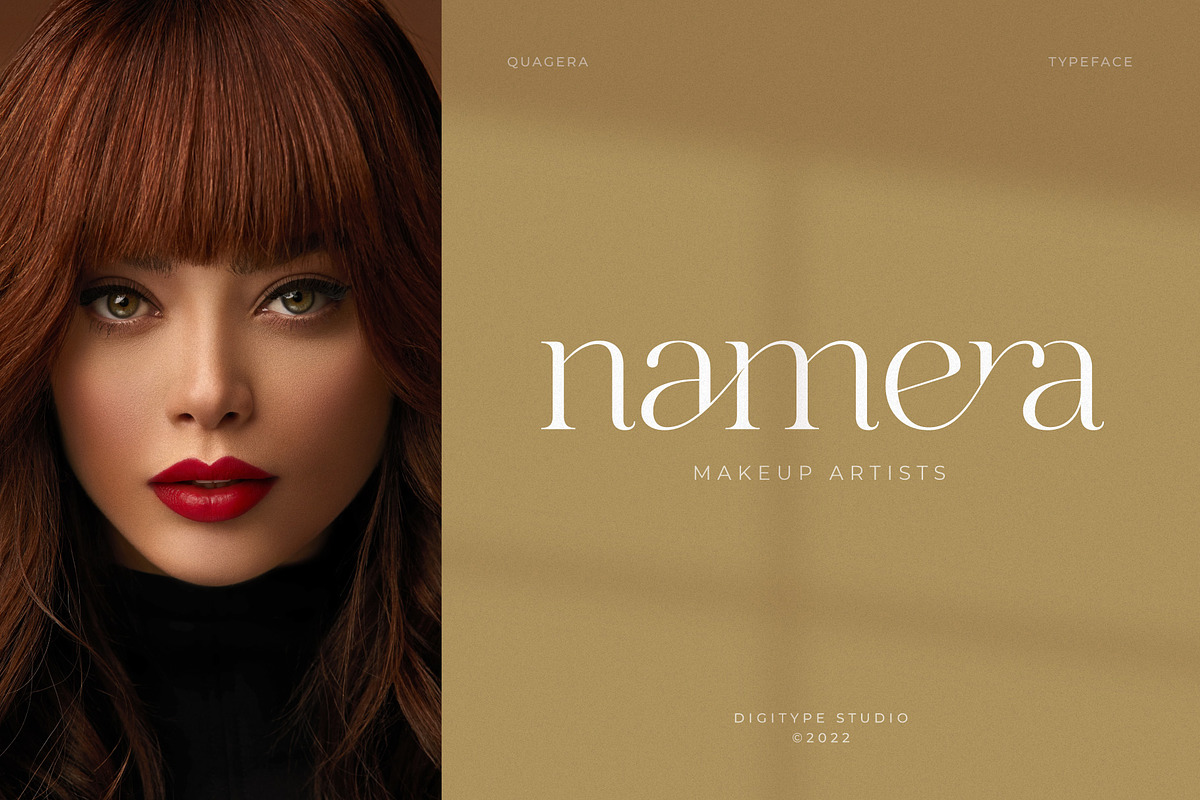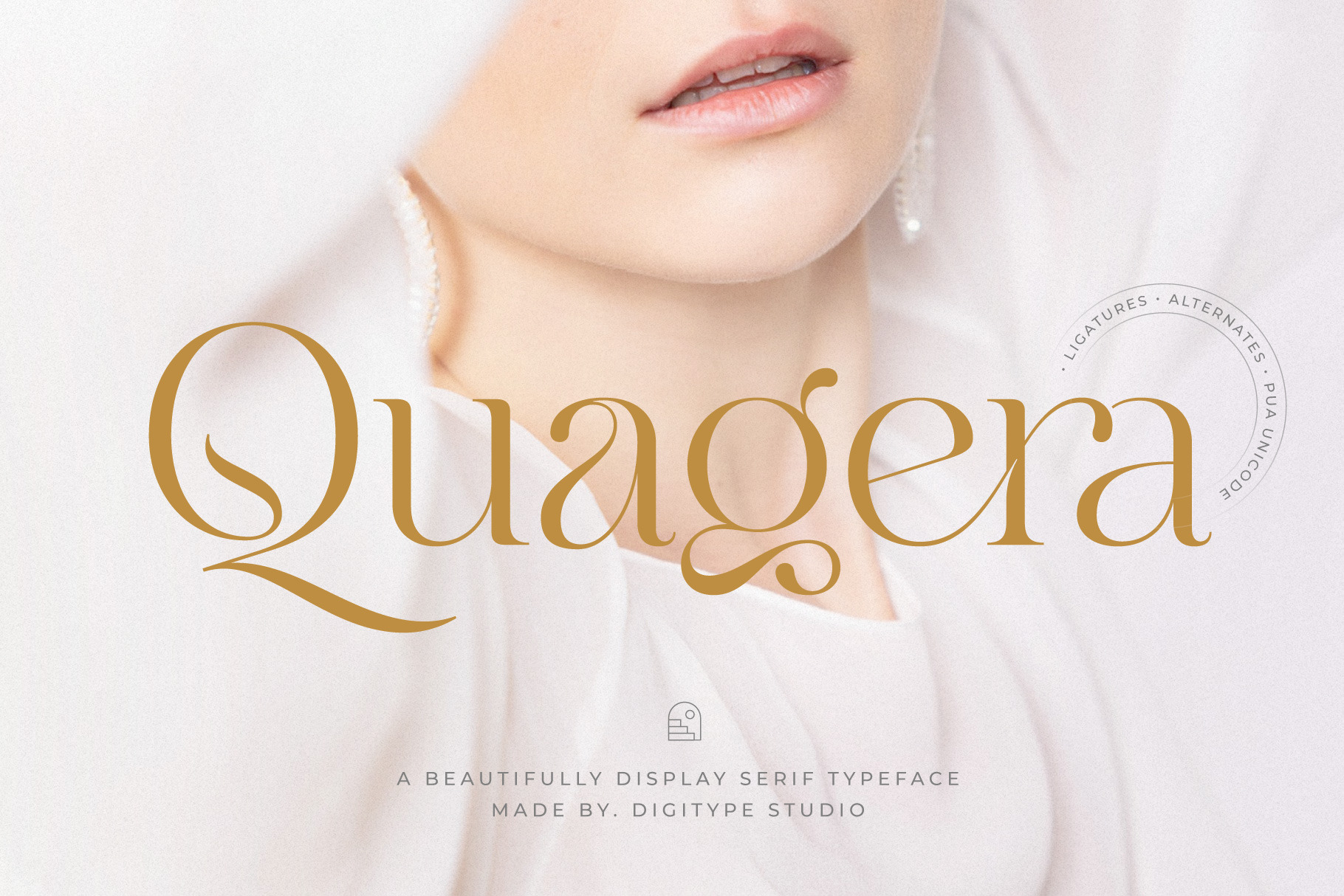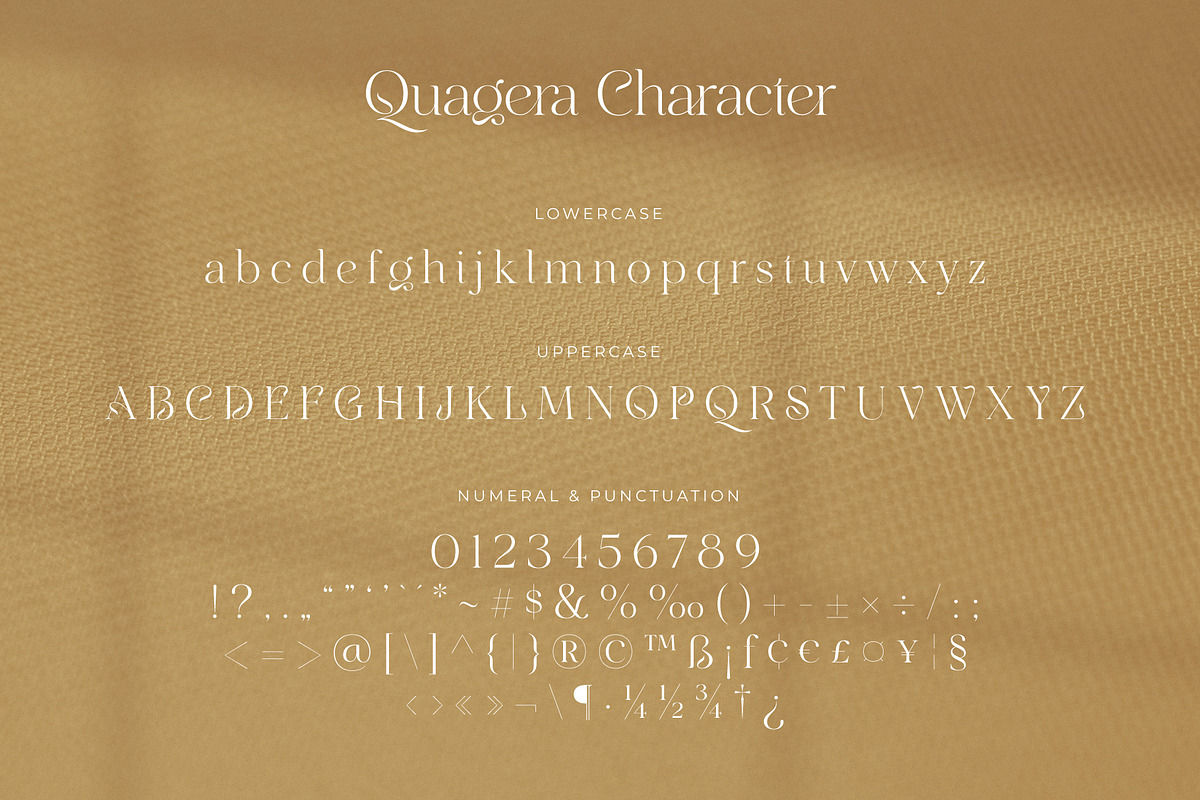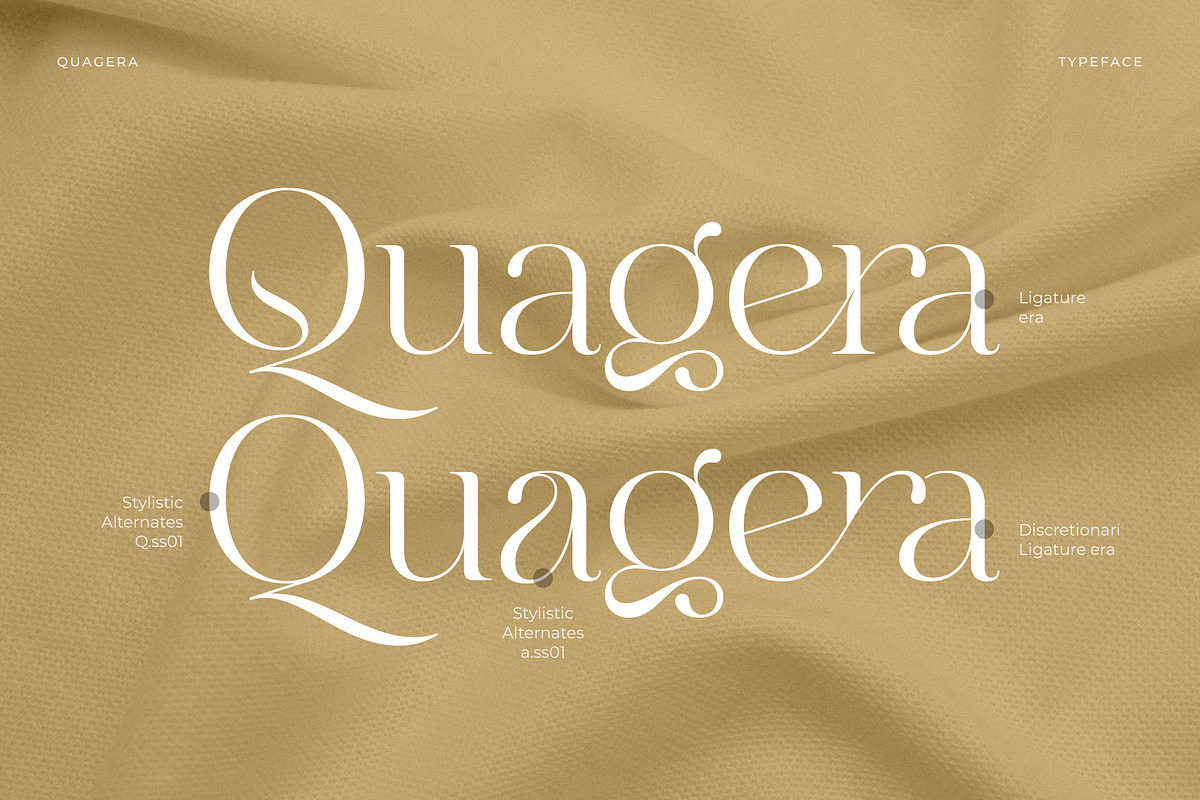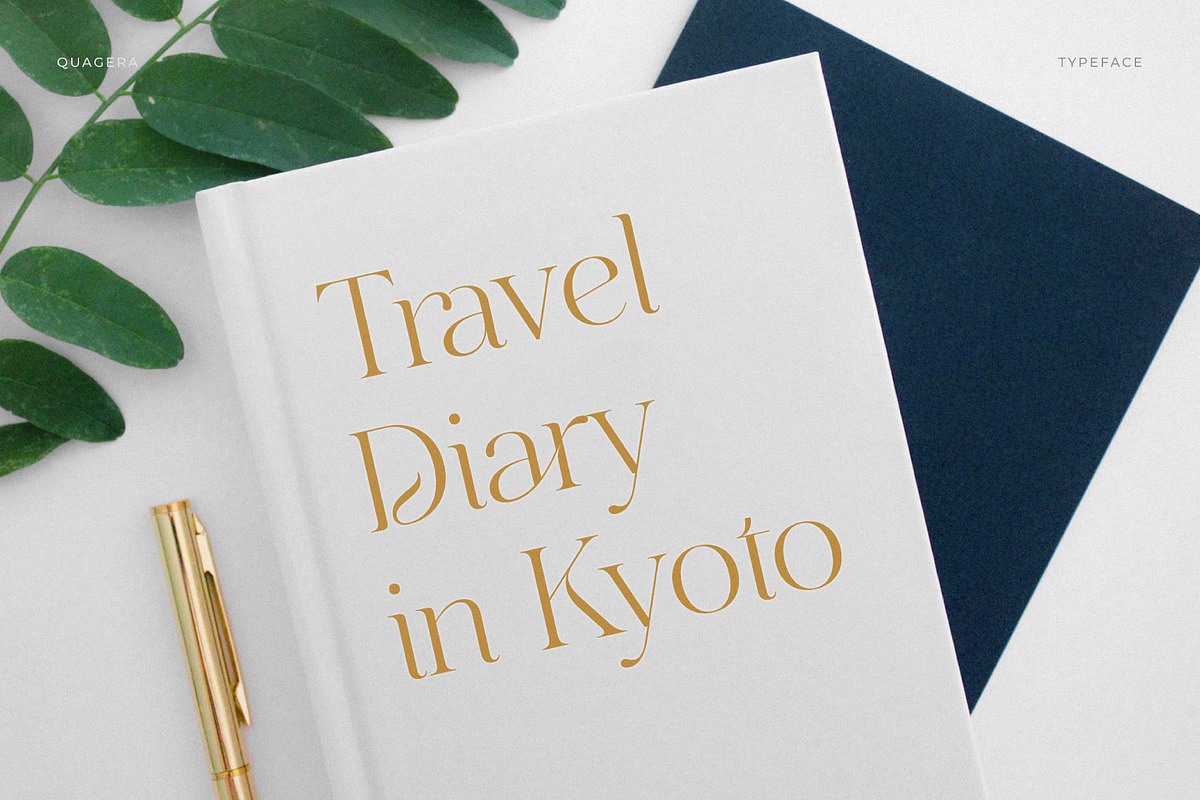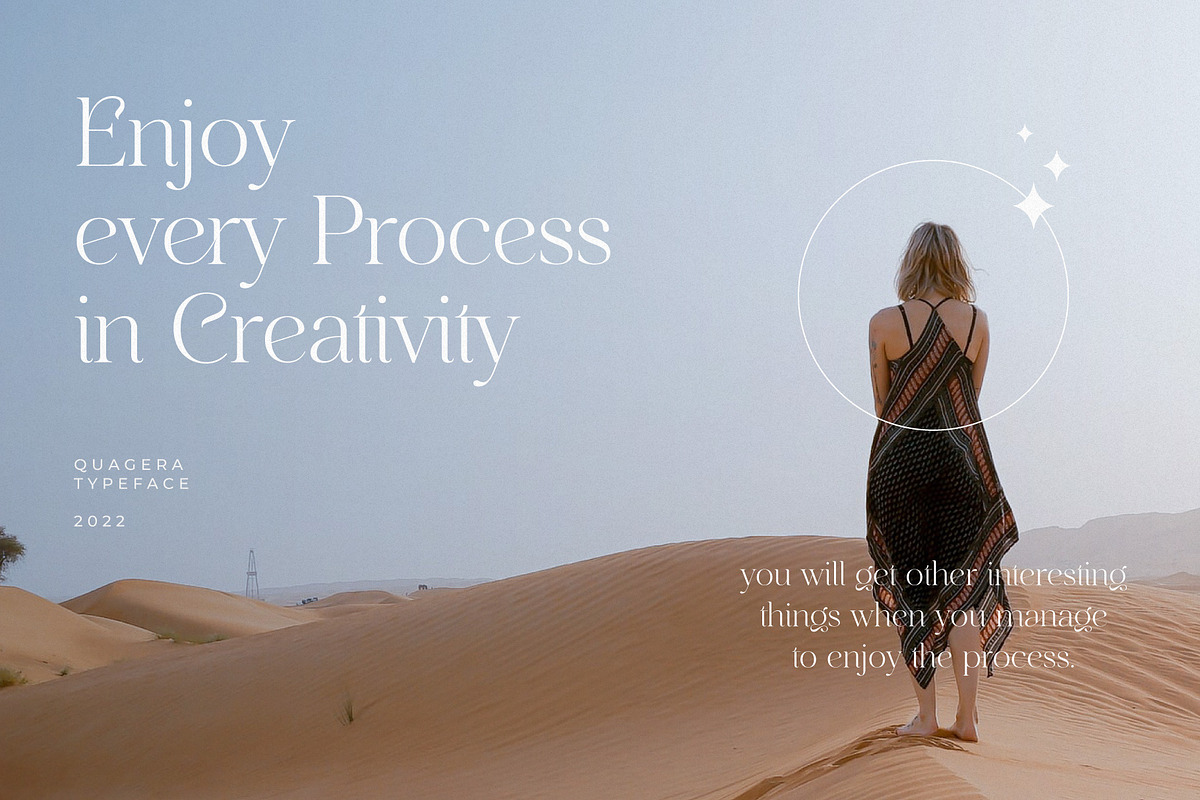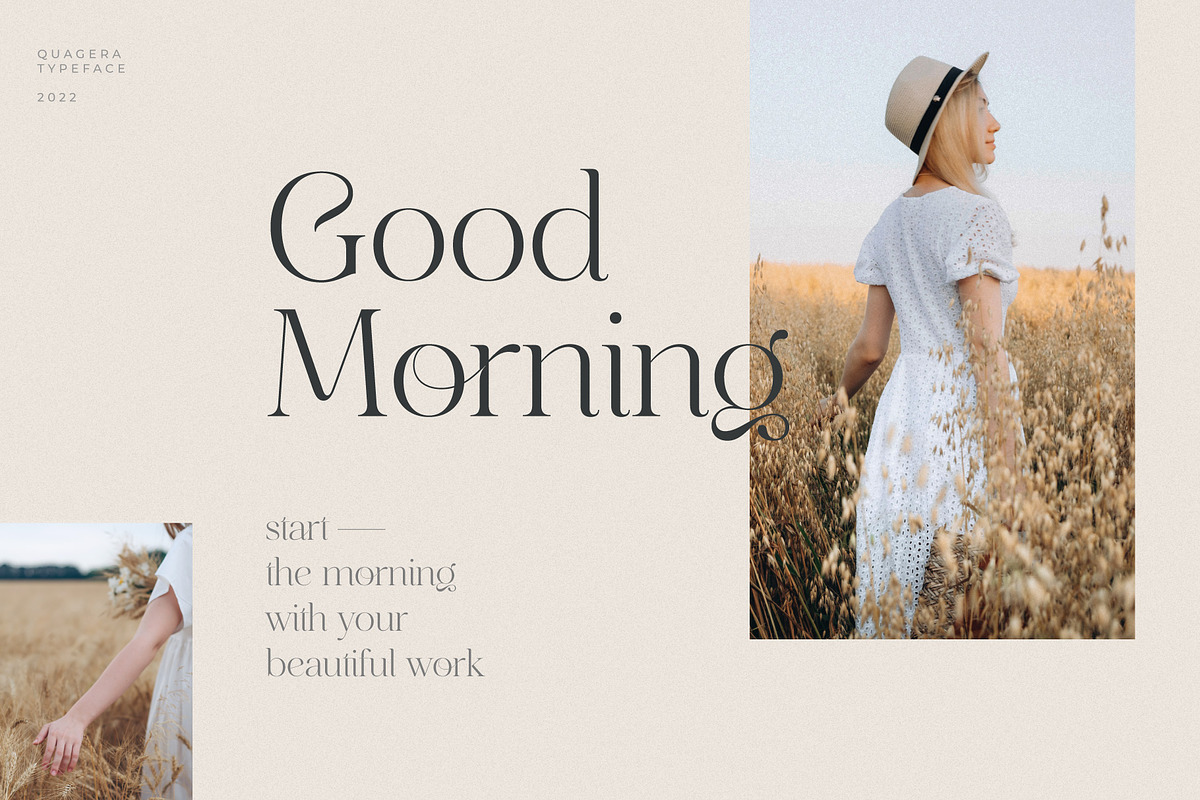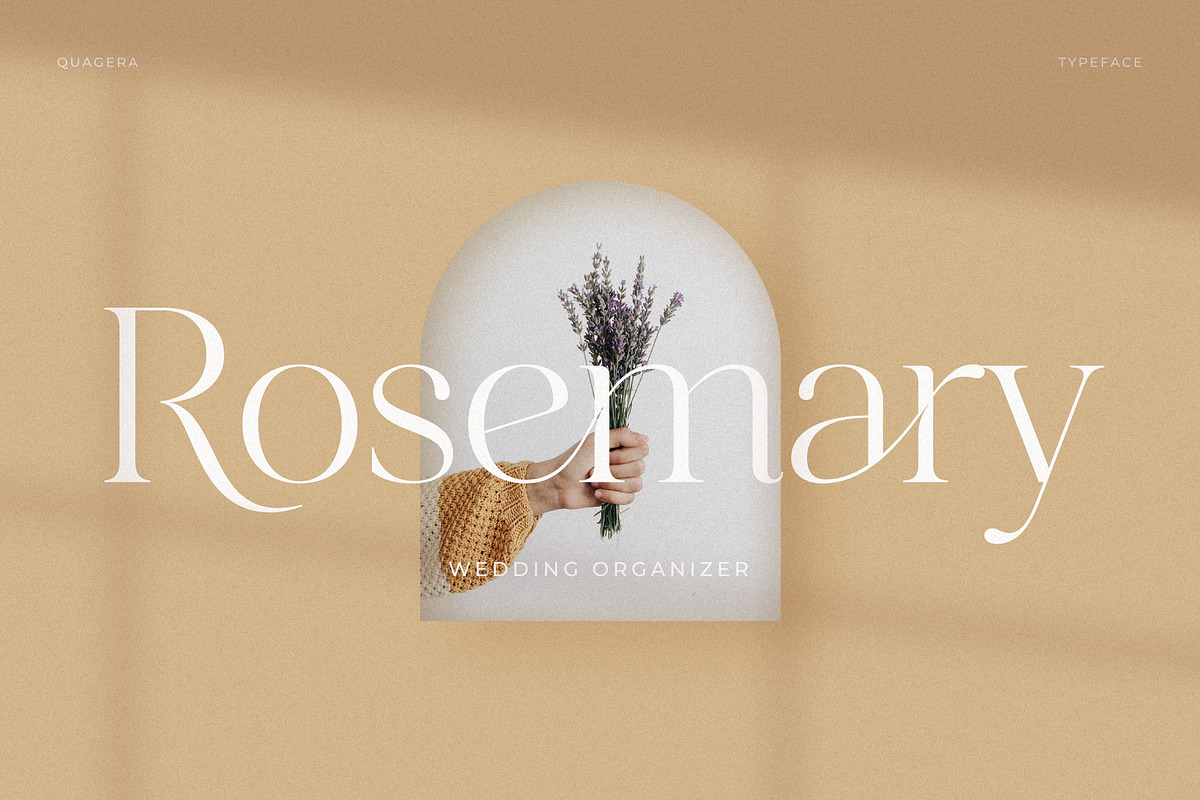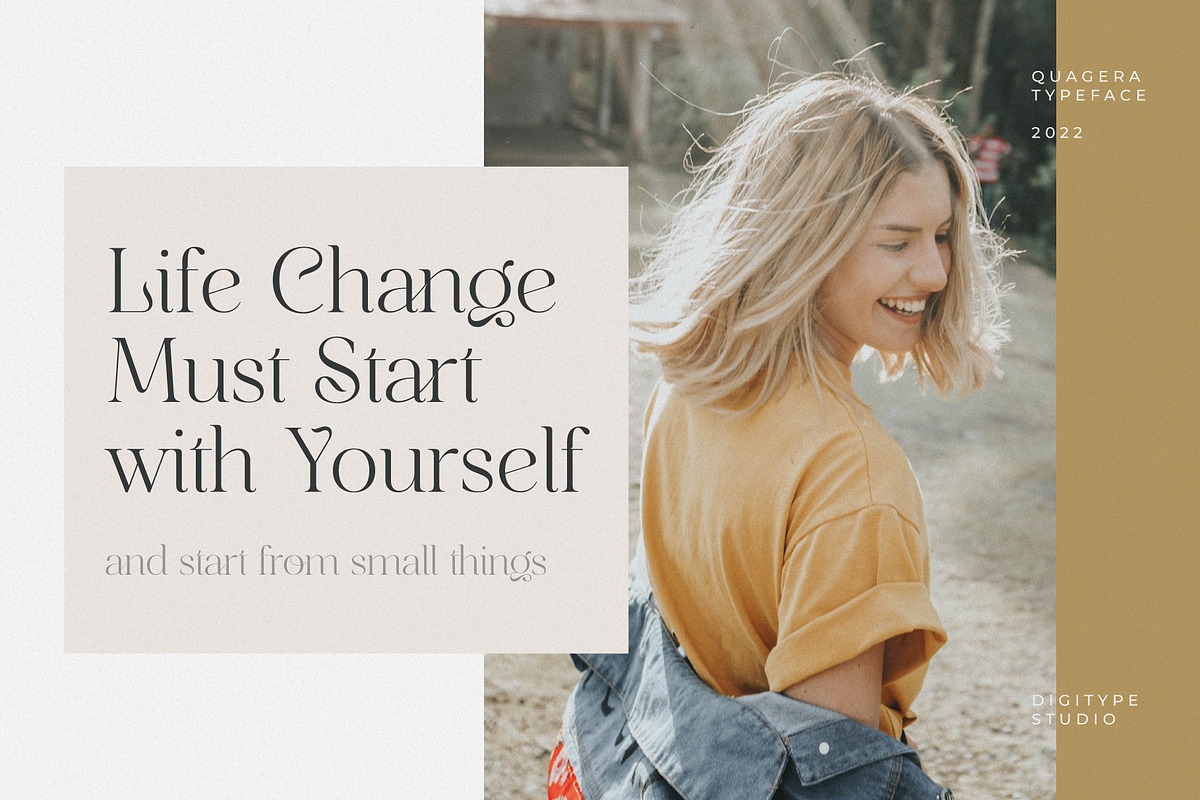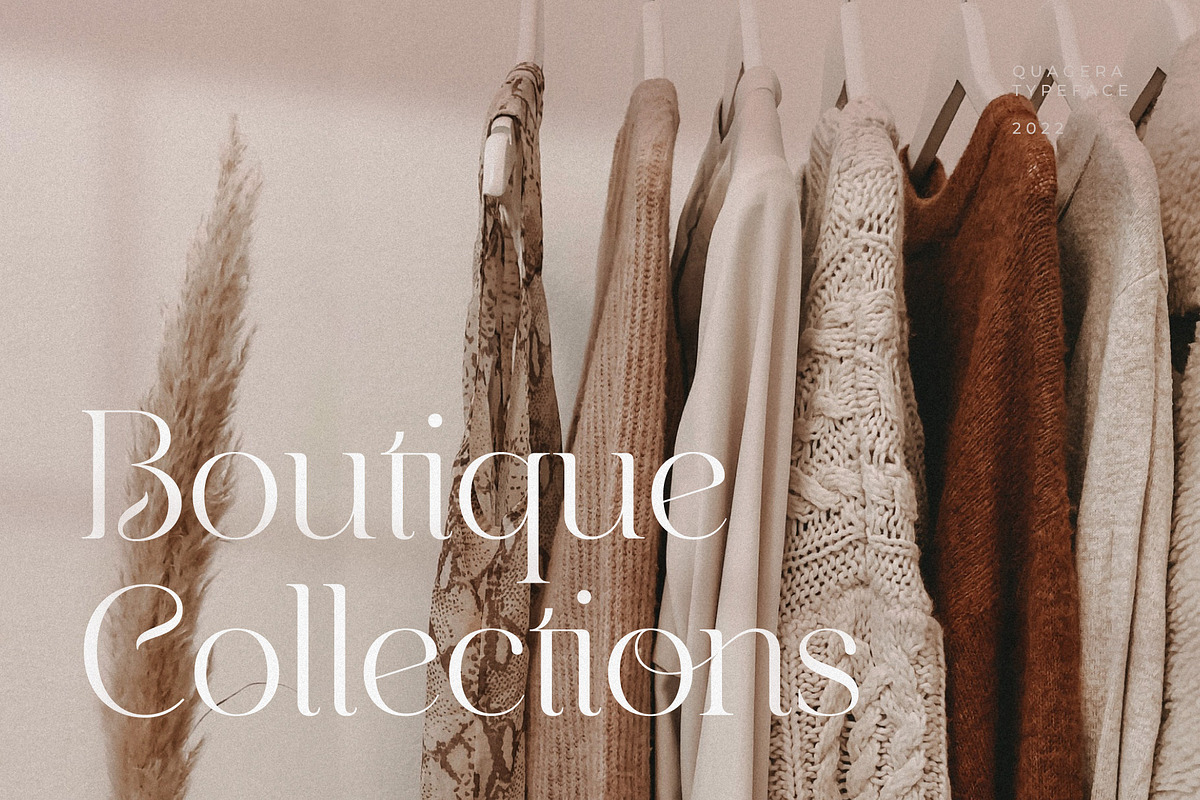
Quagera | Serif Font
Quagera is a beautiful serif font, a blend of modern and old styles and equipped with unique ligatures, discretionary ligatures, and alternates. The Quagera font is very suitable to be applied to various other formal forms such as fashion, logos, invitations, greeting/wedding cards, labels, magazines, books, packaging, makeup, stationery, novels, labels or all kinds of advertising purposes.